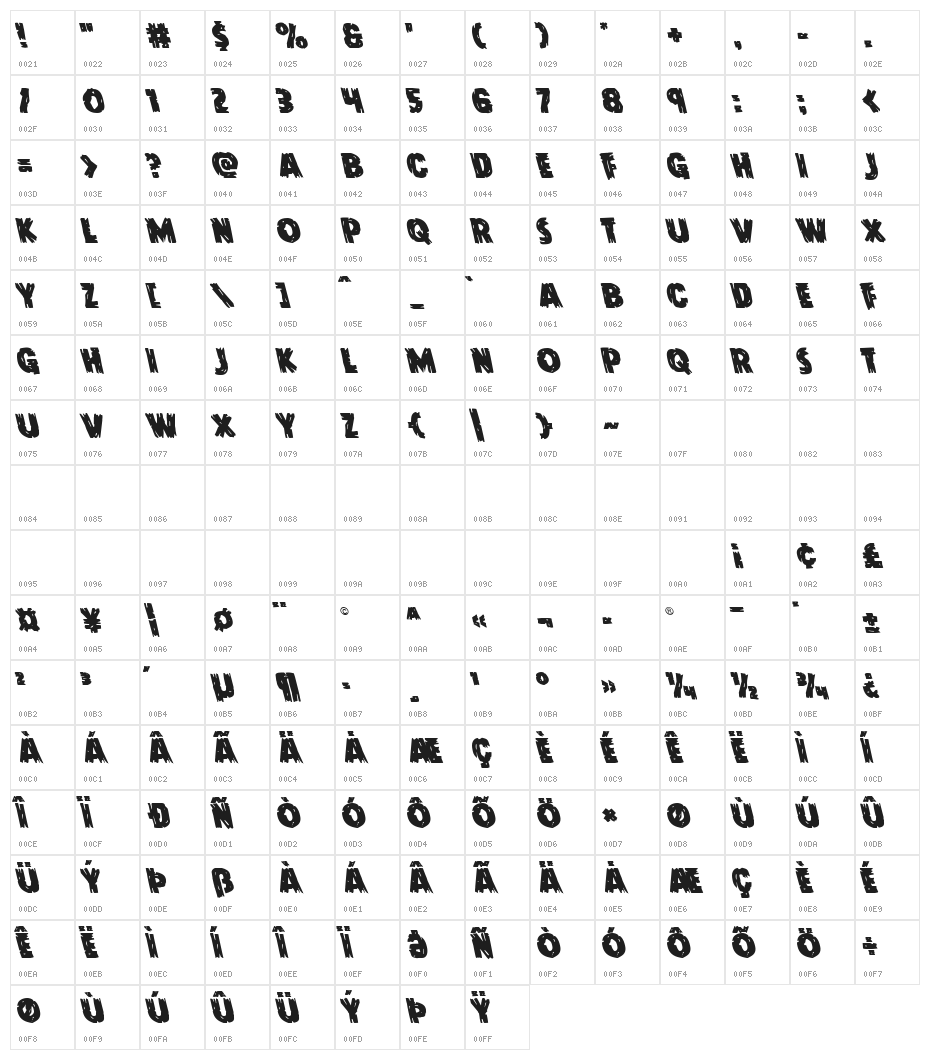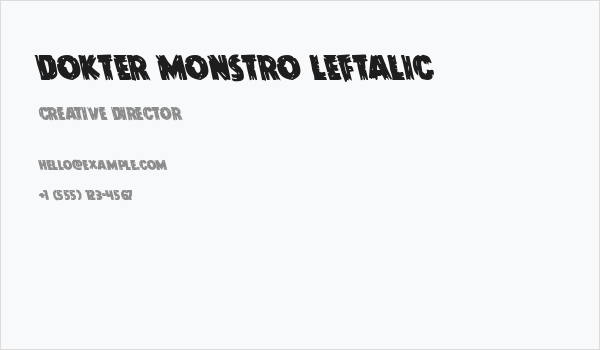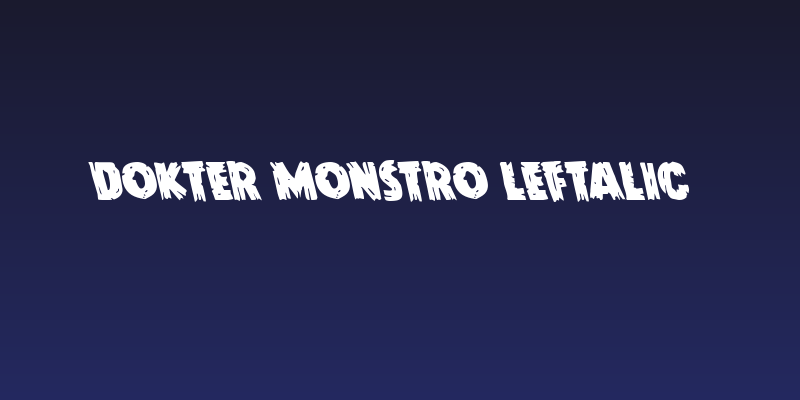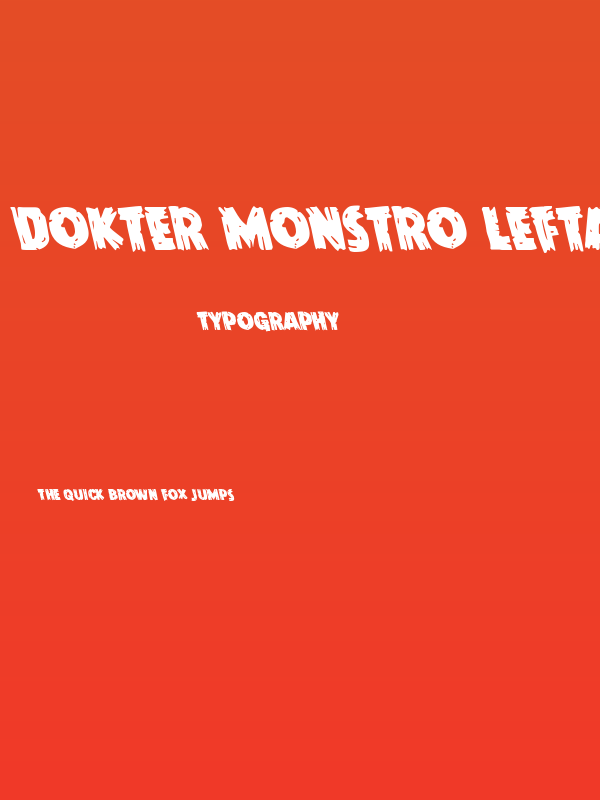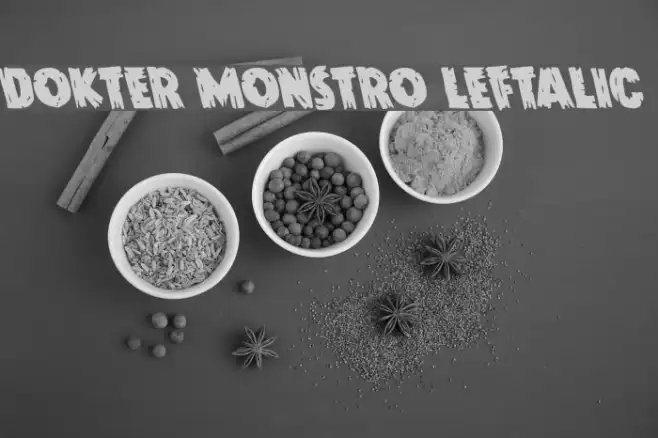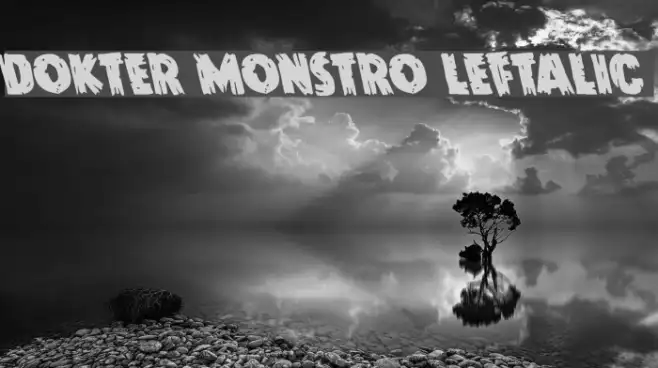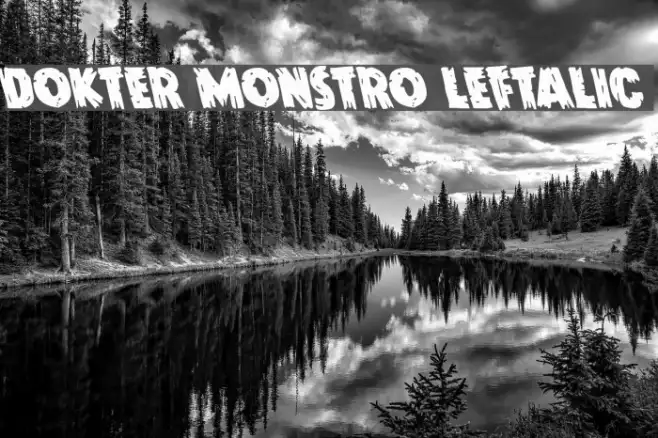
Dokter Monstro Leftalic Font
Dokter Monstro Leftalic Description
This font features a bold and dynamic style with jagged, irregular edges that give it a distressed and energetic appearance. The characters are heavily stylized, with a sense of movement and chaos, making it ideal for attention-grabbing designs. The uppercase and lowercase letters maintain a consistent boldness, while the numbers and special characters follow the same rugged aesthetic. The font's unique and edgy look is perfect for projects that require a strong visual impact.
| Proposed Projects | Ideal for posters, album covers, horror-themed designs, and any project needing a bold, eye-catching typeface. |